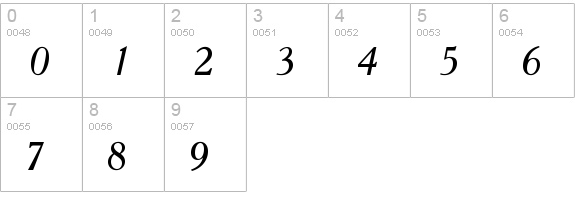
Cheltenham Italic Font Details
Cheltenham Italic is a distinctive, italic variant in the Cheltenham typeface family \xE2\x80\x94 well suited to design and typography projects.
Cheltenham Italic font is a timeless and elegant typeface that exudes sophistication and classic charm. Its slanted letters add a touch of style and flair to any design project. The italicized characters of Cheltenham Italic font effortlessly convey a sense of grace and refinement, making it a perfect choice for adding a touch of sophistication to invitations, logos, and editorial designs. What makes Cheltenham Italic font even more appealing is that it is available for free download at FontsMarket.com. This means that you can easily access and use this beautiful typeface in your projects without any cost. Whether you are a designer looking to elevate your creations or an individual in need of a stylish font for personal use, Cheltenham Italic font is the perfect choice. Download it today and add a touch of elegance to your designs!